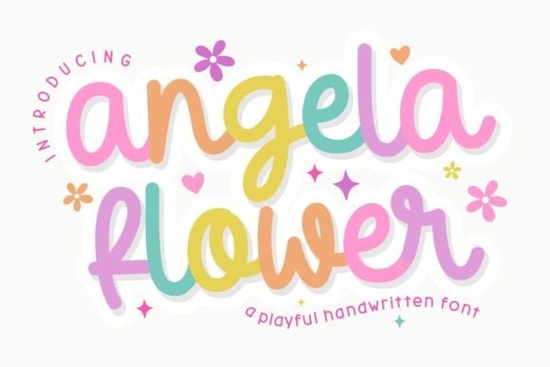
If you are looking for a typeface that feels warm and personal without being overly messy, the Angela Flower Font often appears as a top choice for designers who need a delicate balance. It captures a cozy atmosphere while keeping letters distinct enough to read easily. Whether you are creating custom greeting cards, printing on tote bags, or designing social media graphics, having a versatile cursive tool makes a big difference in how your final project lands.
This specific script brings a spirited energy to typographic compositions. It is not just a decorative element; it functions as a voice within the design. You can find it working well alongside simpler sans-serifs to create contrast, or pair it with other handwritten styles for a layered look. Because it works across platforms like Procreate, Cricut, and Canva, it removes technical barriers for people who want beautiful results without years of practice.
What kinds of projects suit this specific cursive style?
When selecting a font, thinking about where it will live helps narrow down the right option. This script handles large headlines very well because the flourishes catch the eye. Smaller body text might lose some detail, so it is best kept to short phrases or titles. Many sellers use this for logos on handmade goods, wedding invitations, or nursery decor themes where softness is key.
The Angela Flower files usually come with various weights or versions that allow you to adjust weight and thickness. This flexibility is important when adapting a design for different mediums. A thick stroke might work better for a cut file intended for wood, while a thinner line suits embroidery or paper crafts. Testing a few mockups before sending to production saves money and ensures the kerning holds up under scaling.
- Create branding for coffee shops or boutiques looking for an artisan feel.
- Design children’s book covers that need a playful yet legible touch.
- Make printable wall art for home offices or living rooms.
- Personalize gift tags and packaging inserts for small business orders.
How does it compare to other handwritten resources?
What should I watch out for during setup?
Even the best software cannot fix poor planning before importing a file. Always preview the text string you intend to use before saving the final image. Handwritten fonts rely heavily on how the eyes travel across the page. If the lines touch too frequently, they can blur together when printed at smaller sizes.
Sometimes, combining two typefaces creates a stronger message than using one alone. Try pairing a solid block font for the main message and letting Angela Flower handle the accent words. This hierarchy guides the viewer through the information logically without sacrificing style. Remember that negative space is just as important as the letters themselves; leave room for the breaths in the design.
Is it compatible with all editing tools?
p>Compatibility can be a headache when juggling different programs. Standard OpenType formats generally support most vector editors and cutting machines. If you use the full collection on our library, you often get access to bonus elements like clipart or matching symbols that extend the range of your project possibilities beyond just letters. This integration means less hunting around for assets when you are trying to finish a job quickly.For mobile users working in apps like Procreate, ensure the app version supports font importing features. Some tablets require manual conversion to layers before exporting. Downloading a sample set beforehand allows you to test rendering speeds and stability on your specific device. Once confirmed, you can build larger campaigns with confidence.
Practical Checklist for Using This Script
- Review License: Confirm if your intended use falls under Personal or Commercial categories.
- Test Scaling: Reduce the text size to 50% to ensure legibility remains intact.
- Contrast Check: Place the text over your background image to verify visibility.
- Kerning Adjustment: Manually tweak spacing between unique letter pairs like 'V' and 'A' if automatic settings look off.